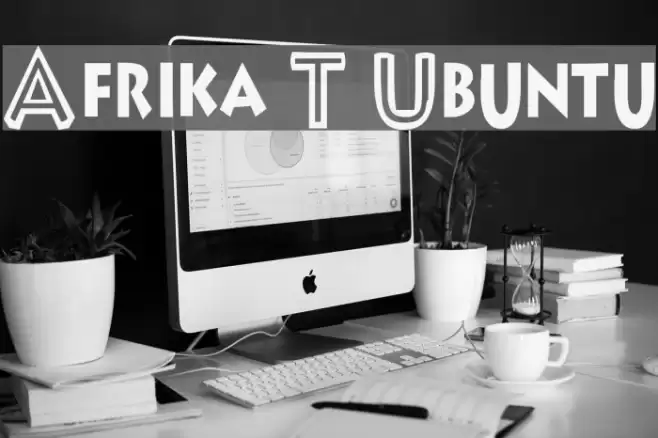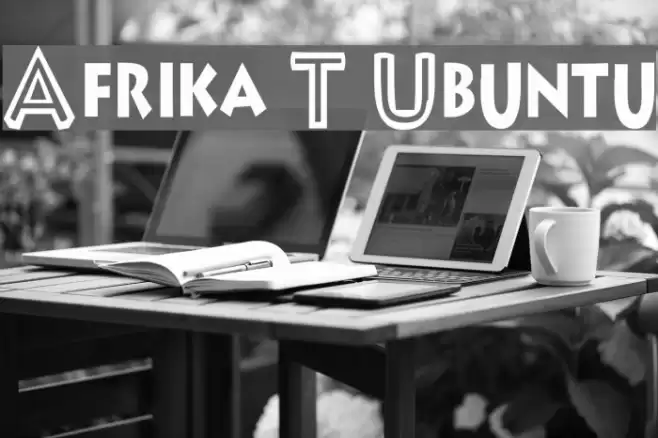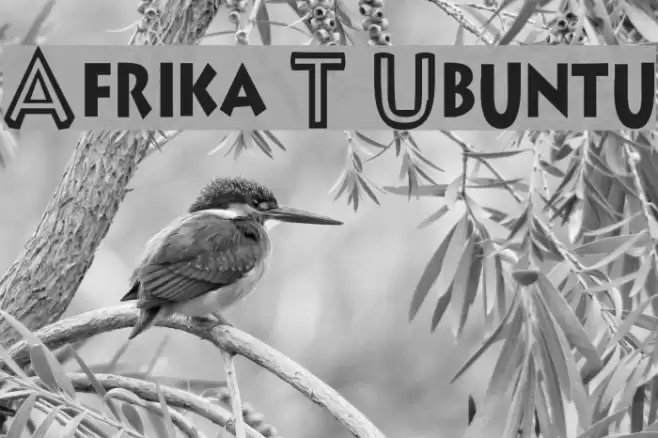
Afrika T Ubuntu Font
Afrika T Ubuntu Description
This font features a bold and dynamic design with a strong geometric influence. The uppercase letters are characterized by sharp angles and a sense of movement, while the lowercase letters maintain a consistent style that complements the uppercase. The numerals are distinct and bold, ensuring readability. Special characters are designed to match the overall aesthetic, making them suitable for various design contexts. The font's unique style is both modern and slightly retro, offering versatility in its application.
A bold, geometric font with a dynamic and modern style from Uncategorized fonts.
- Proposed Projects: Ideal for branding, posters, headlines, and any project requiring a bold, eye-catching typeface.